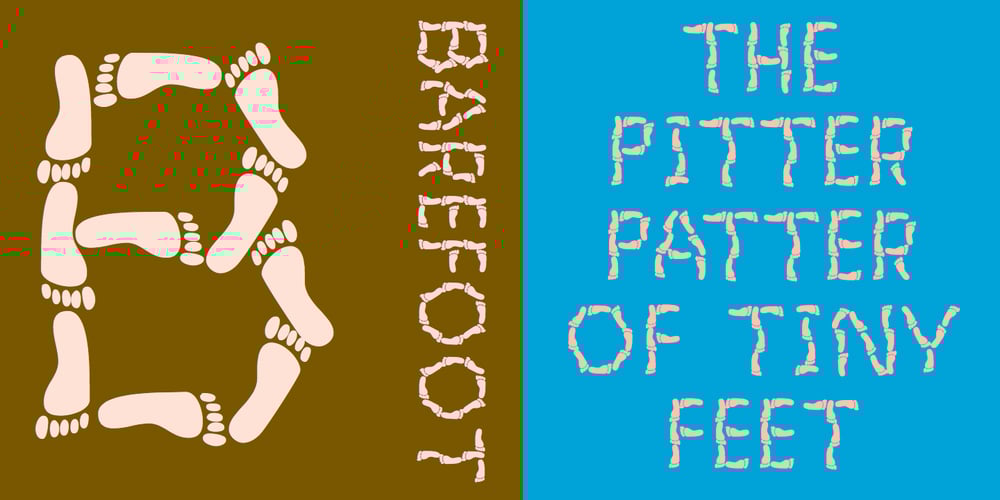
Barefoot
Barefoot font
Barefoot Font Family was designed by Robert Schenk and published by Ingrimayne Type. Barefoot contains 1 styles and family package options. Suppose you were at a sandy beach and you wanted to write a message by making footprints in the sand. You might end up with letters much like those in Barefoot, a typeface made with bare feet. It is all caps but most of the letters on the lower-case keys differ from those on the upper-case keys. It looks best at large point sizes where the details of the feet are clear. It comes with a large assortment of accented letters to support most European languages.